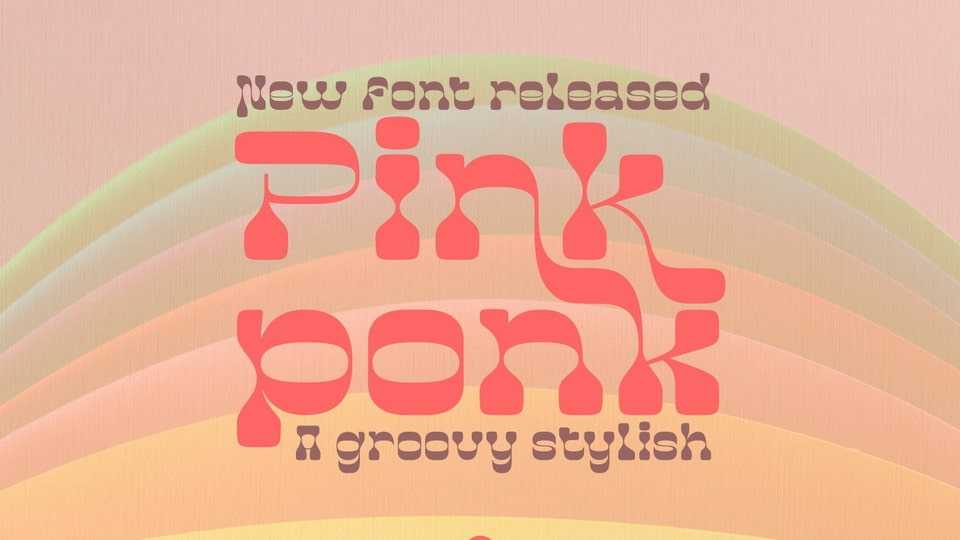
Download Pinkponk font, a groovy and vintage display typeface that has the potential to bring each of your creative ideas to the highest level. Pinkponk brings a touch of 80’s and 90’s era bespoke custom typography to logos, websites, social media quotes, wedding branding, and more.